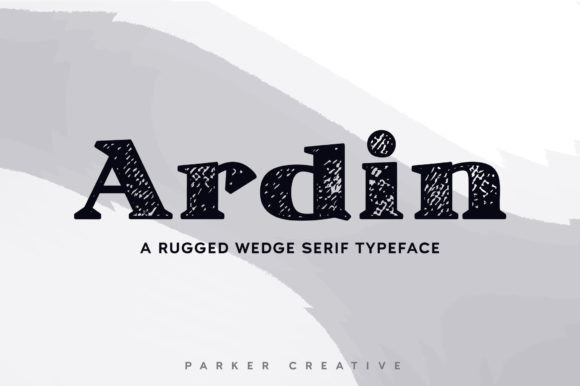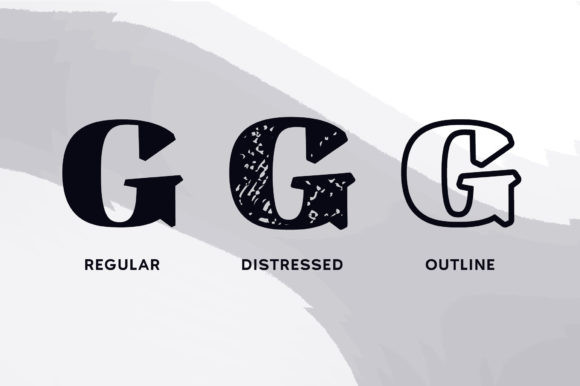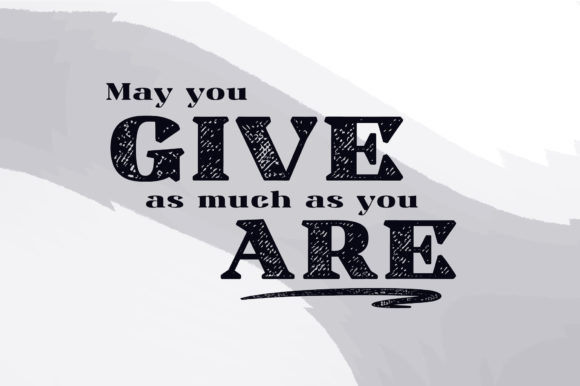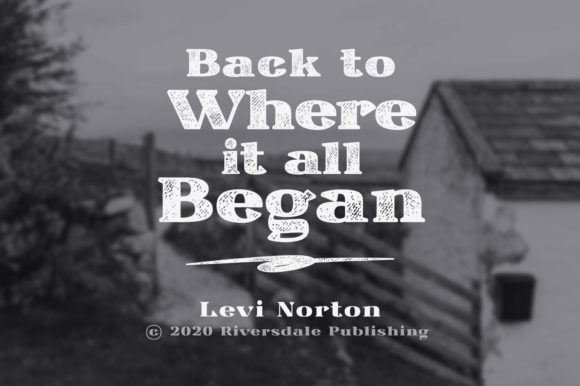
Ardin Font
Meet Ardin is a wedge serif that merges letter characteristics of traditional serifs with textures and styles found almost exclusively in modern sans-serif typefaces. The result is a bold design that feels distinctly classic, powerful, and handcrafted. With Ardin, you can make your projects (logos, product sheets, marketing materials, business cards, websites, etc.) look sophisticated while feeling both approachable and fresh.